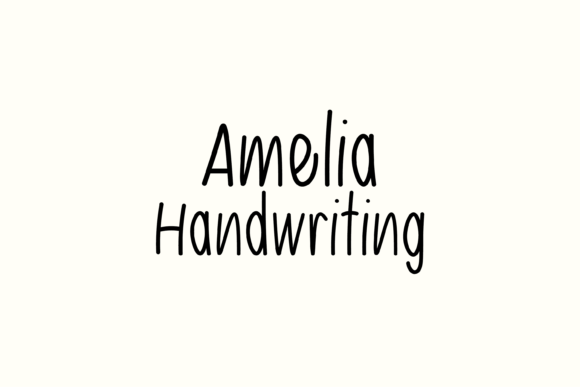
Unlock the Whimsy of Your Designs with Amelia Font
Have you ever stumbled upon a font that instantly sparks your creativity and transports you to a world of endless possibilities? For designers, this moment is pure magic. It’s the moment when the perfect font comes along and elevates your project to new heights. For me, that moment happened when I discovered Amelia Font.
This delightful handwritten display font is more than just a pretty face – it’s a game-changer for designers looking to add a touch of whimsy and personality to their work. With its friendly and approachable vibe, Amelia Font is perfect for a wide range of applications, from logos and wedding invitations to quotes and advertisements. Whether you’re working on a print project or creating content for a magazine, this font is sure to bring a smile to your face and a touch of elegance to your design.
- Unique Characteristics: Amelia features a unique blend of geometric and organic shapes, resulting in a clean and modern look.
Amelia Font Review
Amelia Font is a versatile and elegant font that can add a touch of sophistication to any design. Here are some of its strengths: ✨
- Beautiful serif and script variations, perfect for adding a personal touch to wedding invitations, greeting cards, or formal events.
- Wide range of weights and styles, making it suitable for both body text and headlines.
- Legible and clear, even at smaller font sizes.
Overall, I think Amelia Font is a great choice for designers looking to add a touch of elegance to their projects. While it has some limitations, its beauty and versatility make it a solid option for formal or creative designs.
Use Amelia Font for titles, headings, and body text to create a consistent design look. Experiment with different font sizes, colors, and styles to add visual interest to your designs. Pair Amelia Font with other elegant fonts to create a sophisticated design aesthetic.